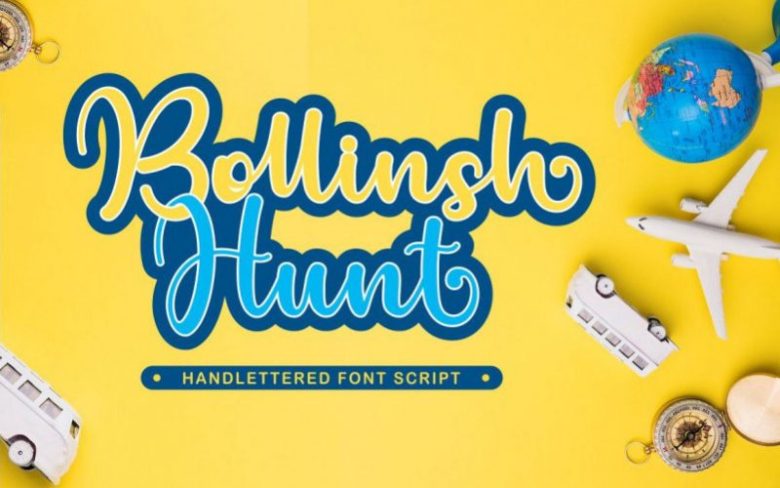
Hi, I will introduce my newest product “Bollinsh Hunt” This font is very modern, and is perfect for your design … This font is suitable for business cards, logos, covers, comics, invitations, etc.